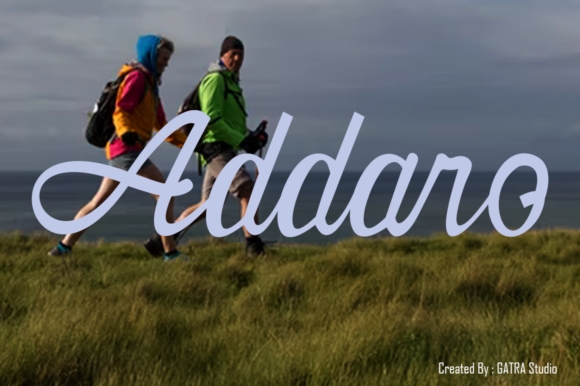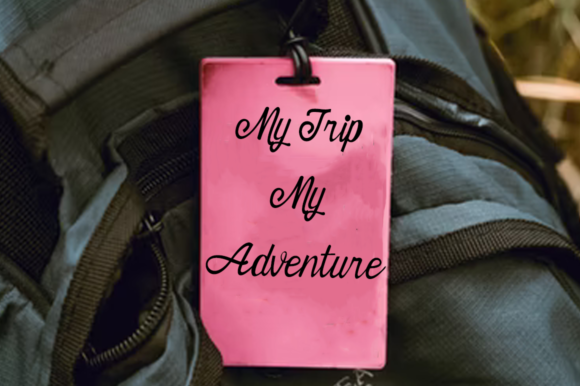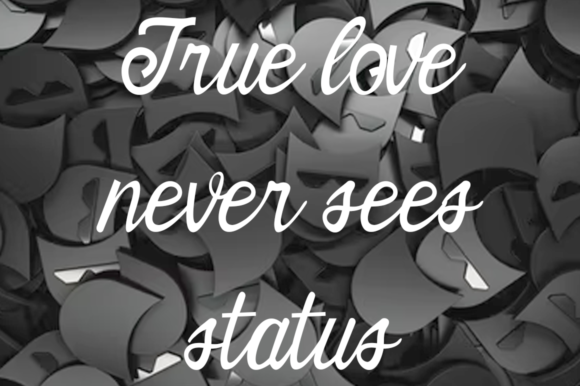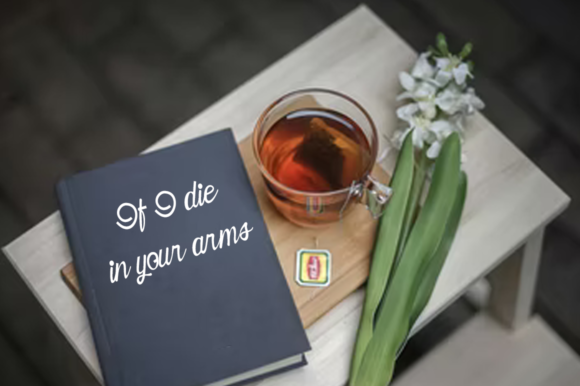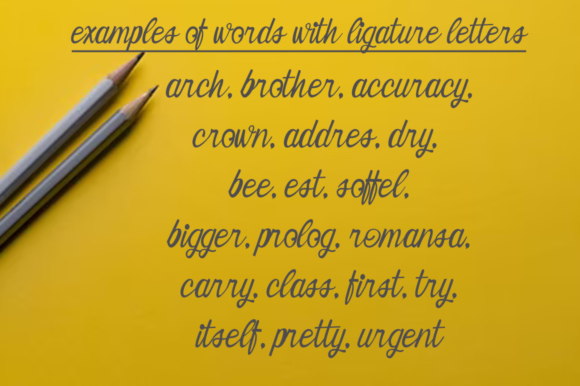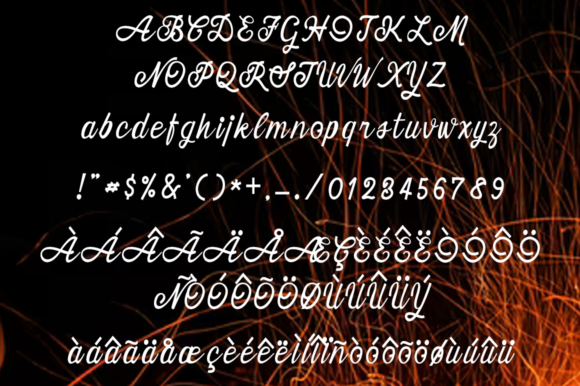
Addaro Font
About Addaro Font
Addaro is a lovely and timeless handwritten font. It is the best choice for creating eye catching logos, branding and quotes. This font is PUA encoded which means you can access all of the glyphs and swashes with ease!